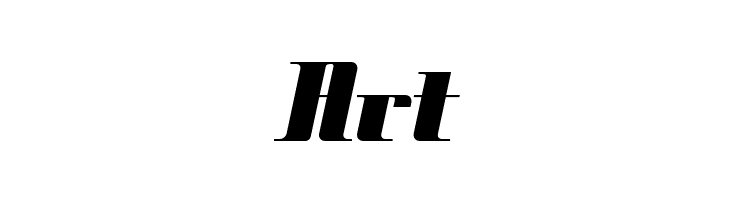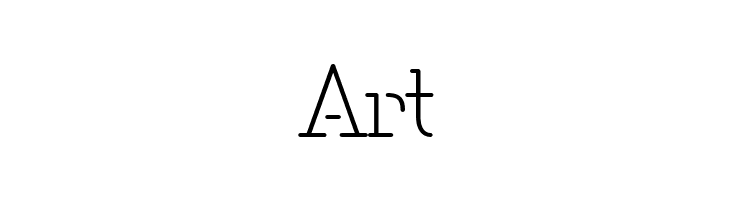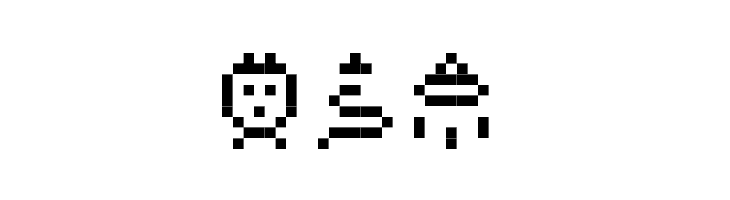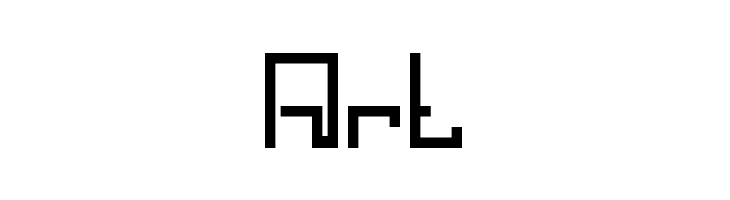
• SouciSansNF
A modern, playful font with rounded characters and consistent stroke width.
• Space Cadet NF
A bold, futuristic font with sharp angles and a dynamic slant.
• SpaceBeingsTwo
A collection of whimsical space-themed illustrations featuring unique and imaginative creatures.
• SpaceCadetNF
A futuristic, angular font with a dynamic slant and bold presence.
• Spacegun
• SPACEWORM
A futuristic, pixelated font with a digital, geometric style.
• SPACEWORM02
A futuristic, playful font with rounded, worm-like shapes.
• Spacy Stuff
• Speedball No 2 Bold NF
• Speedball No 2 NF
A geometric serif font with angular serifs and a modern-retro aesthetic.